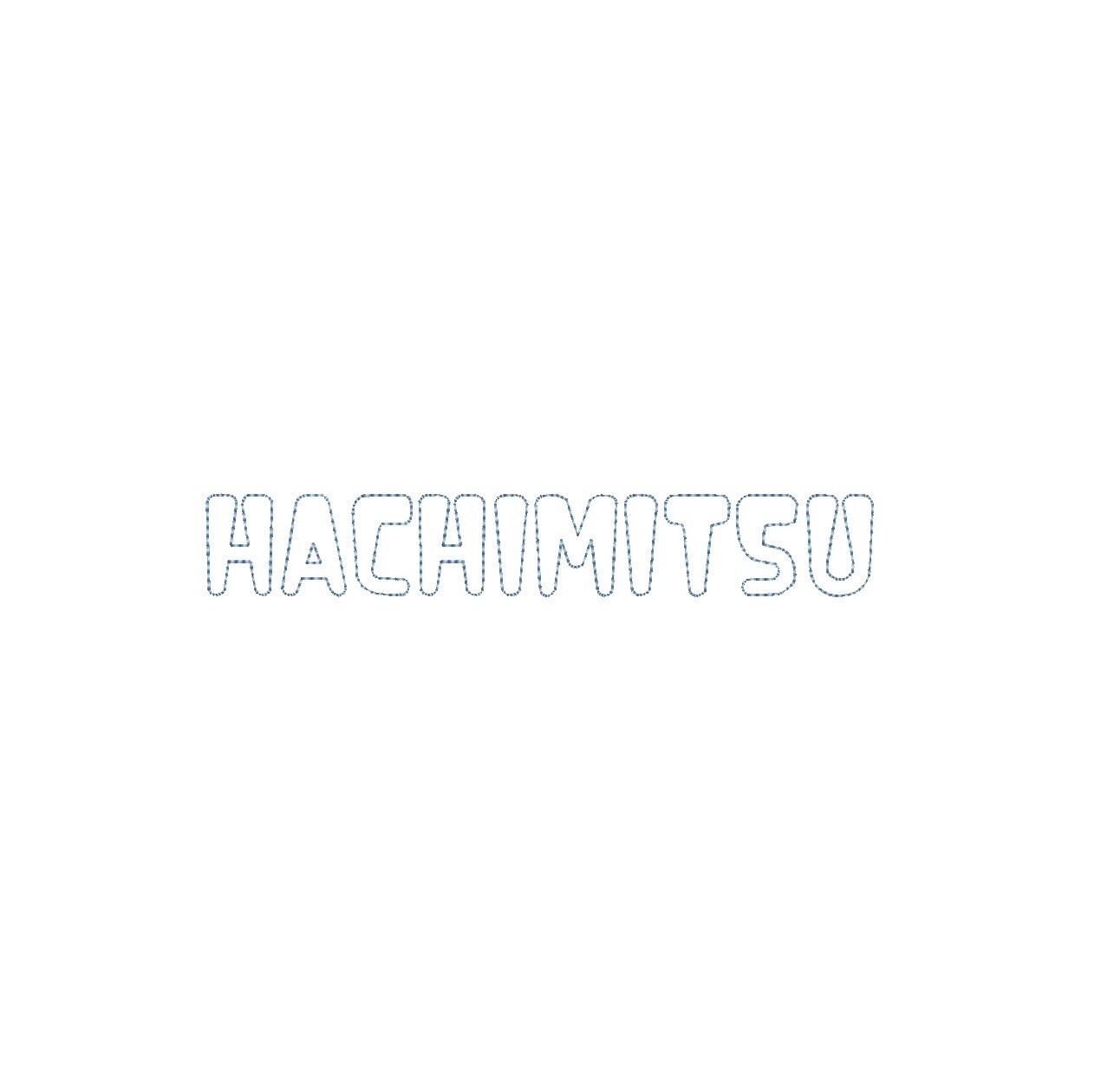
Elevate your embroidery with the Hachimitsu Bean Stitch Outline ESA font. Designed for compatibility with Wilcom Studio e4.5.6 and Hatch 3 versions and beyond, this font adds a touch of elegance and intricacy to your designs. The finely crafted bean stitch outline style imparts depth and uniqueness, ideal for monograms, labels, and decorative elements. Seamlessly integrate and achieve precise stitching, enhancing your embroidery projects. Explore boundless creative potential in Wilcom Studio and Hatch software with the Hachimitsu Bean Stitch Outline ESA font. Elevate your designs and make a lasting impression today with this exceptional font.